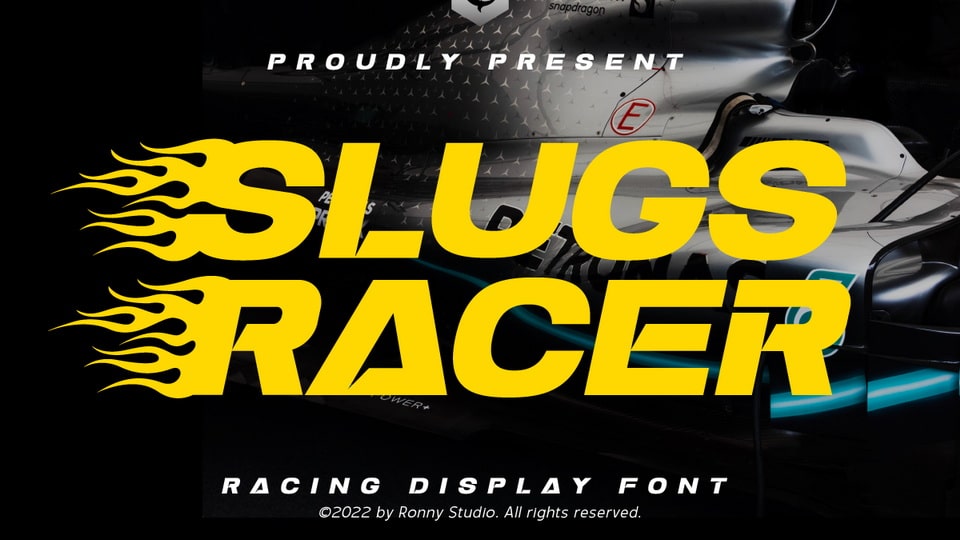
Download Slugs Racer font, an all-caps racing display typeface that has a very thick body but maintains high contrast. This font looks very modern when paired with a contrasting design color.